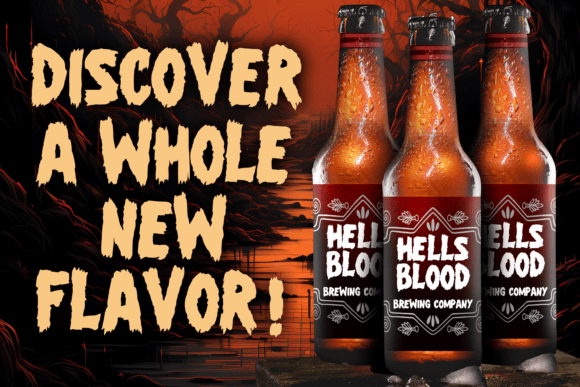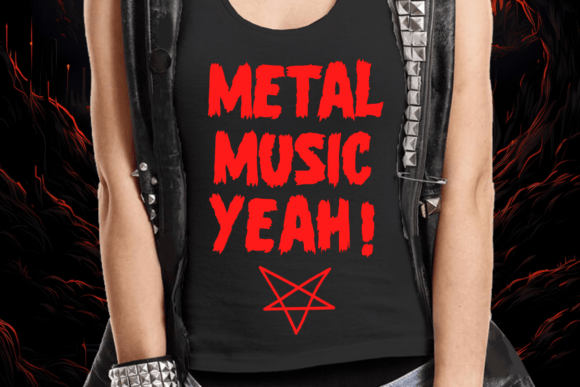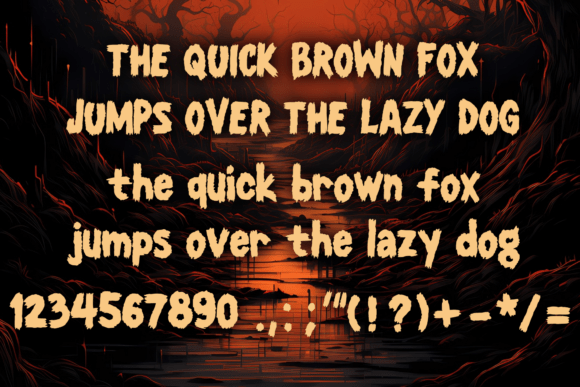
Introducing Ghost Rebellion Font: Unleash the Horror in Your Designs
Are you tired of using the same old fonts in your designs? Do you want to add a touch of eeriness and rebellion to your creative projects? Look no further than Ghost Rebellion Font, a uniquely crafted font that embodies the spirit of horror and metal music. In this article, we’ll dive into the world of Ghost Rebellion, exploring its inspirations, features, and uses, and show you how to make the most of this exceptional font.
The Inspirations Behind Ghost Rebellion
Ghost Rebellion Font draws its inspiration from the darkest corners of vintage horror movies, chilling horror comics, and the rebellious spirit of Metal music. The font’s creators wanted to capture the essence of the eerie and the unknown, combining it with a sense of boldness and daring. The result is a font that is both haunting and mesmerizing, perfect for designers and crafters who want to add a touch of terror to their work.
Features of Ghost Rebellion Font
Ghost Rebellion Font is more than just a font – it’s an experience. With its bold and daring design, this font is sure to make a statement in any creative project. Here are some of its key features:
- Unique Design: Ghost Rebellion Font features a one-of-a-kind design that is both eerie and captivating.
- Vintage Horror Inspiration: The font’s inspiration from vintage horror movies and comics gives it a distinctively retro feel.
- Metal Music Influence: The rebellious spirit of Metal music is evident in the font’s bold and daring design.
- Highly Versatile: Ghost Rebellion Font can be used in a wide range of creative projects, from merchandise and book covers to party décor and greeting cards.
Uses of Ghost Rebellion Font
Ghost Rebellion Font is an incredibly versatile font that can be used in a variety of creative projects. Here are some ideas to get you started:
- Merchandise: Design spine-chilling t-shirts, apparel, and accessories that will make your audience scream with delight.
- Book Covers: Add a terrifying twist to your book covers and make them stand out from the crowd.
- Halloween Party Décor: Create frighteningly good party decorations, including posters, banners, and signs that will set the mood for a hauntingly good time.
- Greeting Cards and Stickers: Design wicked greeting cards, stickers, and posters that will leave your friends and family screaming with delight.
Tips for Using Ghost Rebellion Font
To get the most out of Ghost Rebellion Font, here are some tips to keep in mind:
- Experiment with Different Sizes: Ghost Rebellion Font looks great in large and small sizes, so don’t be afraid to experiment with different sizes to achieve the desired effect.
- Pair it with Other Fonts: Combine Ghost Rebellion Font with other fonts to create a unique and eye-catching design.
- Use it in Combination with Images: Pair Ghost Rebellion Font with haunting images to create a terrifyingly good design.
Ghost Rebellion Font is a game-changer for designers and crafters who want to add a touch of horror and rebellion to their creative projects. With its unique design, vintage horror inspiration, and metal music influence, this font is sure to make a statement in any design. Whether you’re creating merchandise, book covers, party décor, or greeting cards, Ghost Rebellion Font is the perfect companion for your haunting and Halloween-themed creative endeavors. So why wait? Unleash the horror in your designs with Ghost Rebellion Font and experience the terror and thrill of creating something truly unique and captivating.